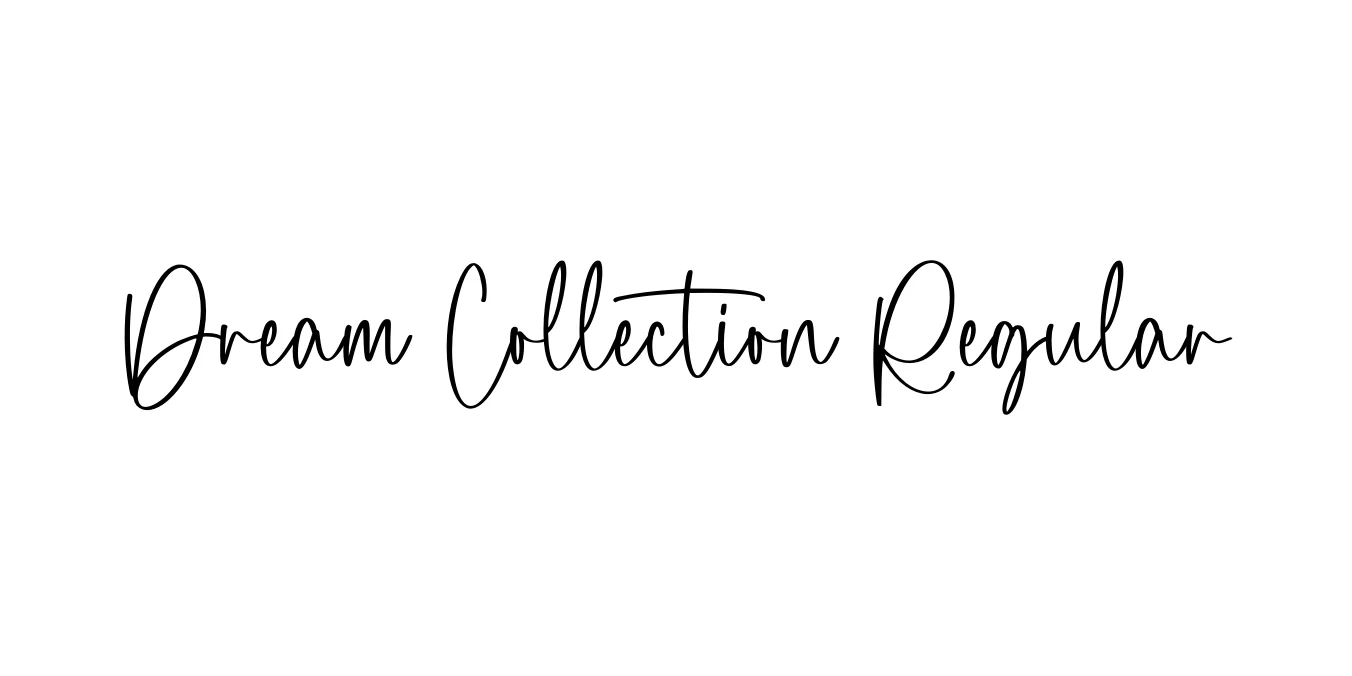
Dream Collection Regular
Designed by Maulana Creative
Dream Collection Regular is a stylish and elegant display font designed to evoke a sense of modern luxury and whimsical charm. Its fluid lines and clean strokes make it a versatile choice for designers looking to add a touch of sophistication to their creative projects, effectively bridging the gap between minimalist design and decorative artistry.
Developed by Maulana Creative, this typeface features a unique blend of contemporary aesthetics and classic proportions. It is particularly well-suited for high-end branding, fashion editorials, and decorative typography where readability and artistic flair must coexist seamlessly to create a lasting visual impression.
Dream Collection Regular Best Uses
Ideal for creating sophisticated logos and brand identities.
Perfect for elegant invitations and romantic event materials.
Great for eye-catching quotes and stylish Instagram graphics.
Adds a premium and personal feel to high-end product packaging.